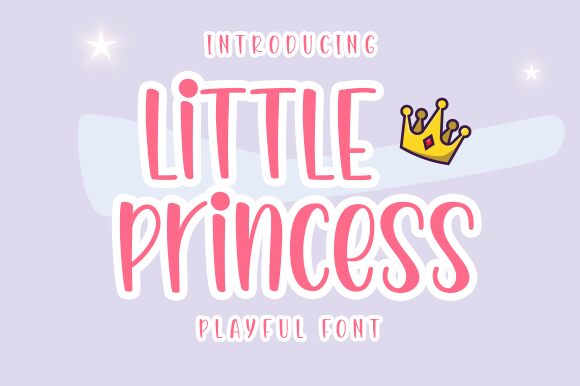
"Meet Little Princess, the playful cartoon display font designed by Nirmala Creative. Its condensed width makes it perfect for creating eye-catching headlines and titles in children's books, posters, and packaging designs. This font's whimsical style adds a touch of fun to any project, whether it's a party invitation or a logo for a kids' clothing brand. The Little Princess font is sure to charm and delight any audience with its bubbly personality and vibrant energy."